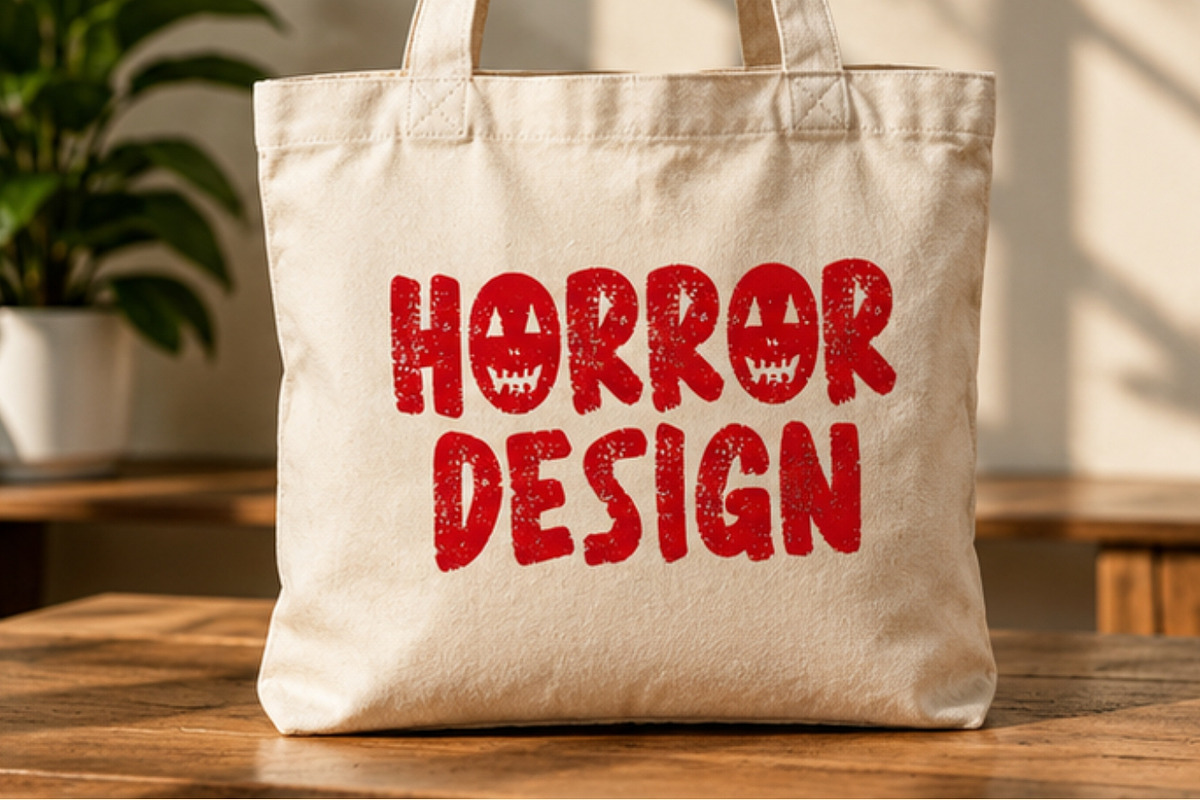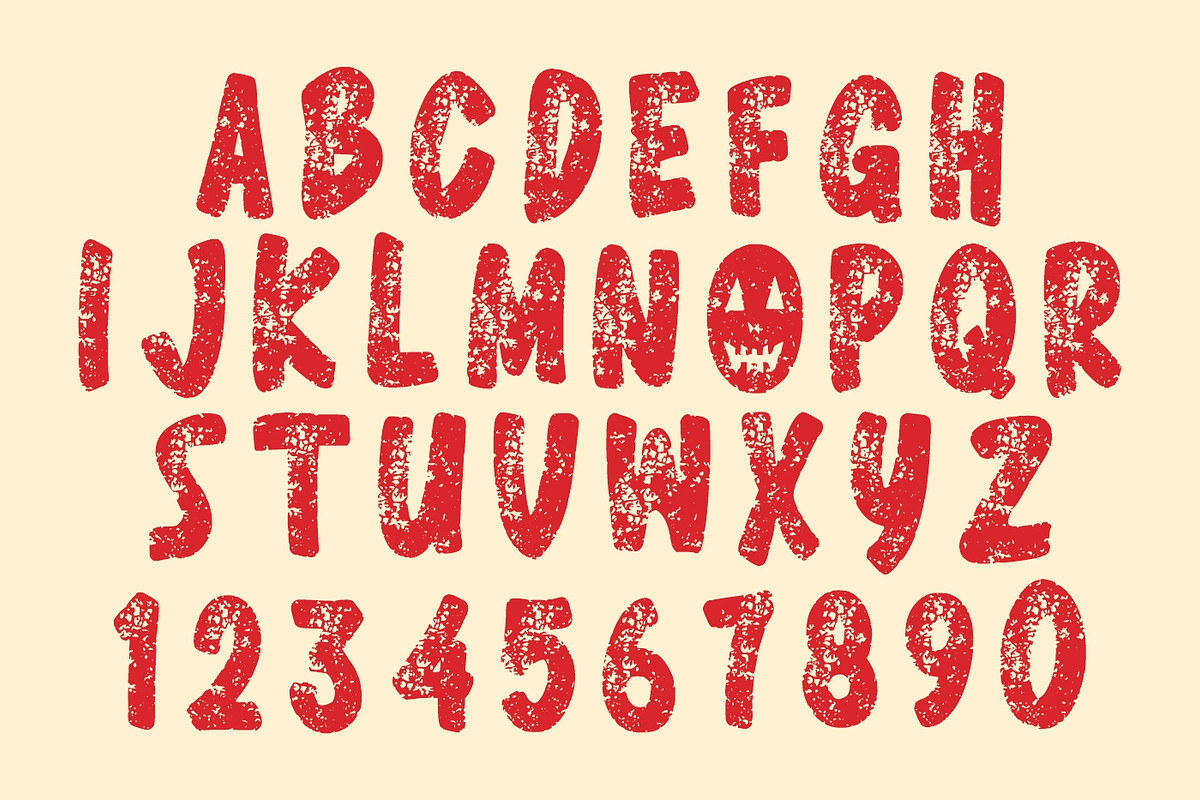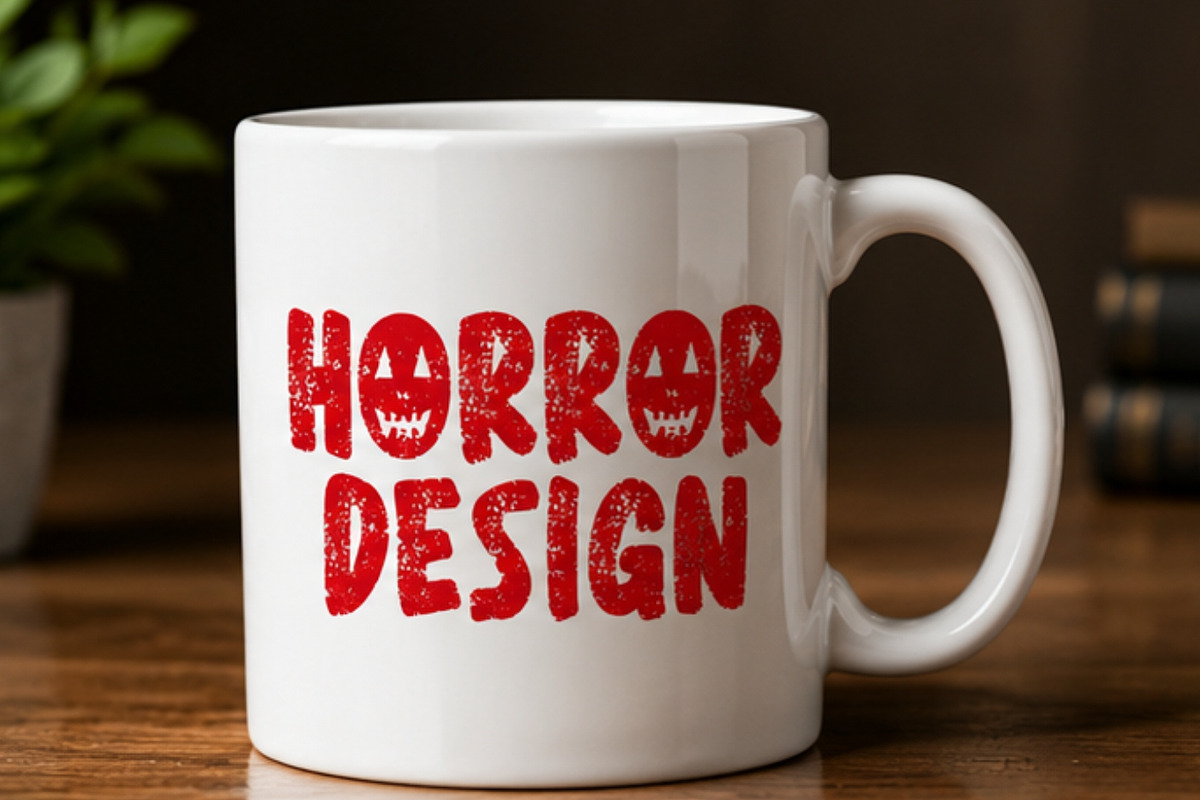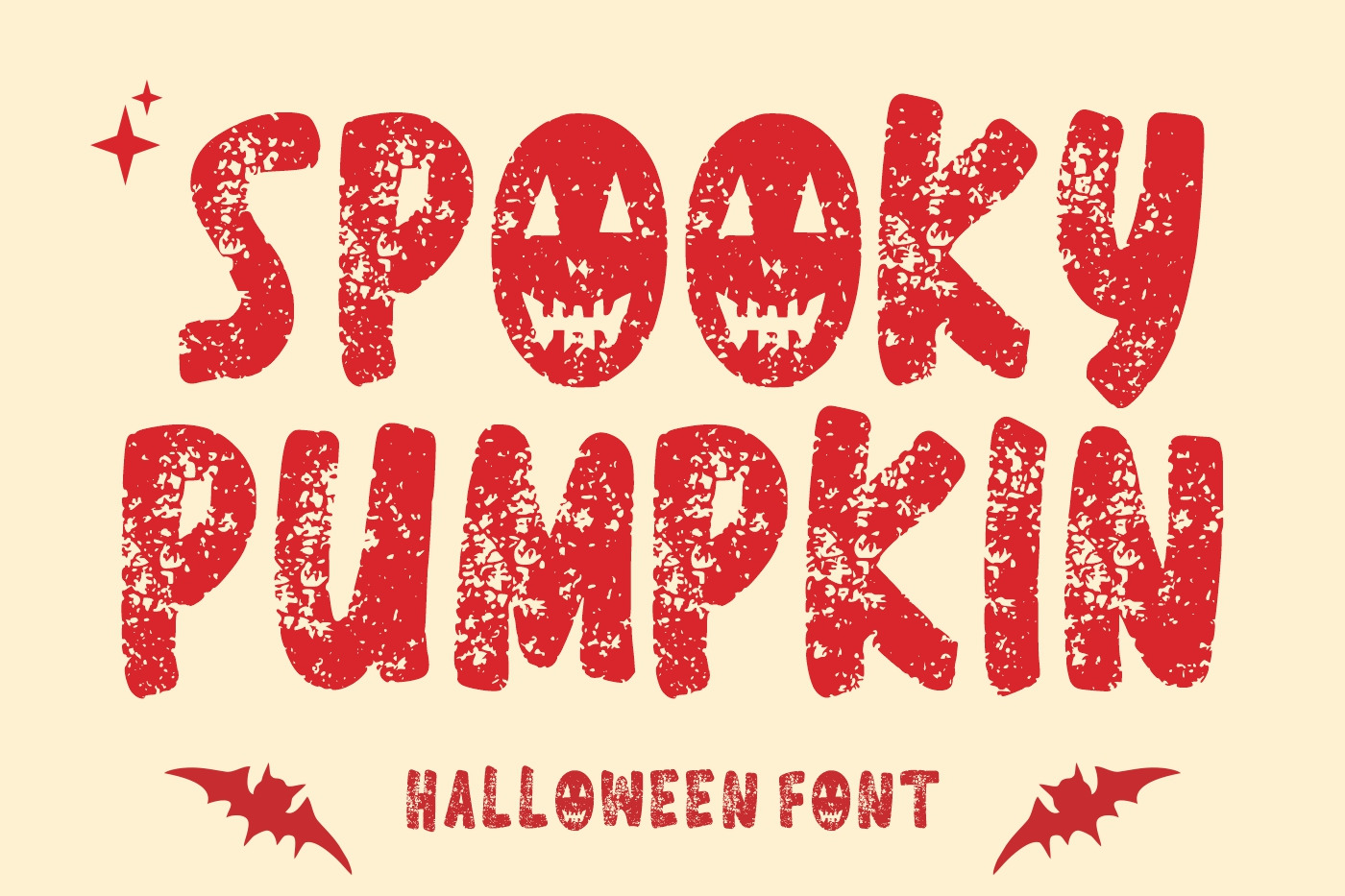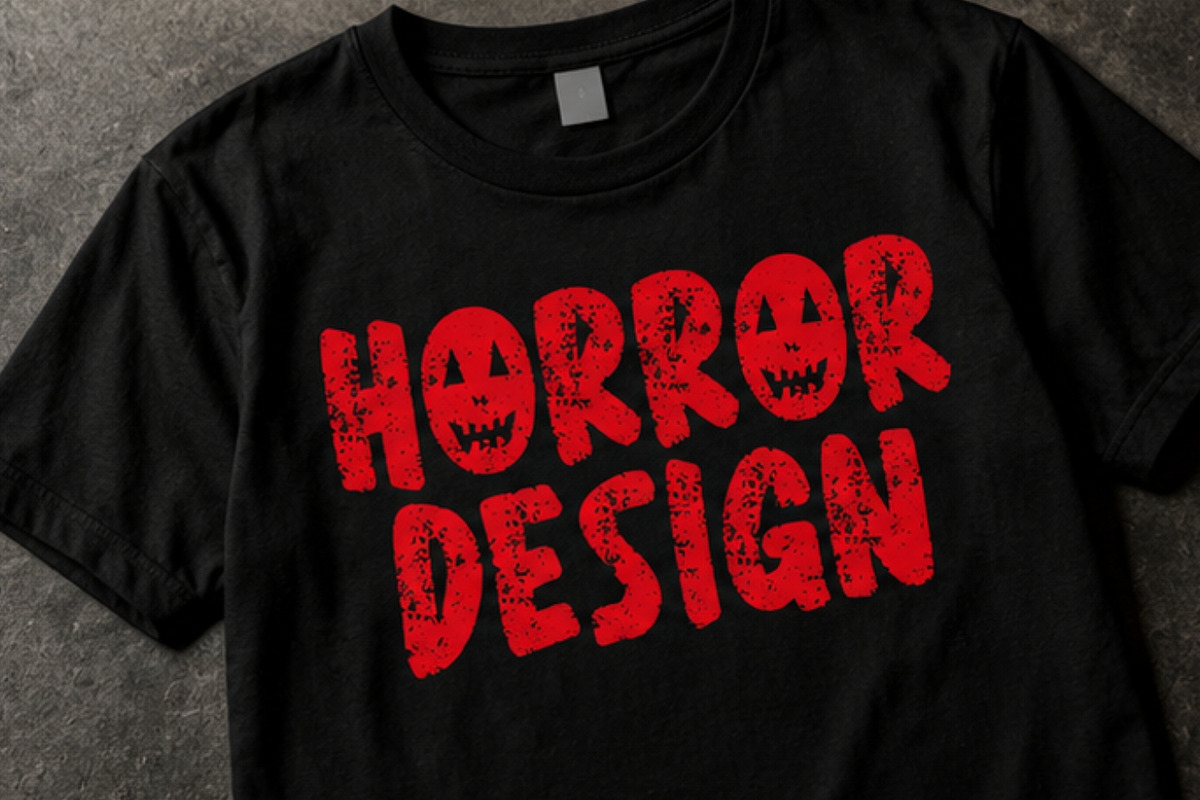
Spooky Pumpkin - Halloween Font
Spooky Pumpkin is a bold and creepy Halloween display font designed to bring an instant horror atmosphere to your creative projects. Featuring chunky, playful letterforms with distressed textures, eerie pumpkin-face details, and a spooky Halloween-inspired character, this font combines a fun seasonal style with a dark and haunting personality.
Perfect for Halloween designs that need to stand out, Spooky Pumpkin works beautifully for T-shirt designs, posters, invitations, party decorations, greeting cards, stickers, sublimation, mugs, merchandise, social media graphics, logos, and seasonal branding. Its bold display style makes headlines and short phrases highly visible, while the distressed texture adds an authentic creepy and vintage horror feel.